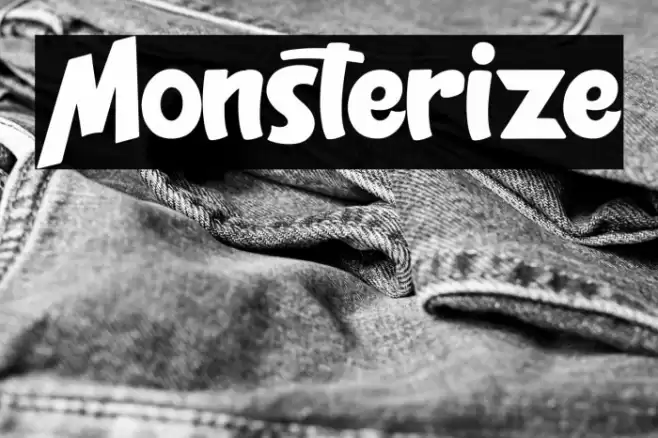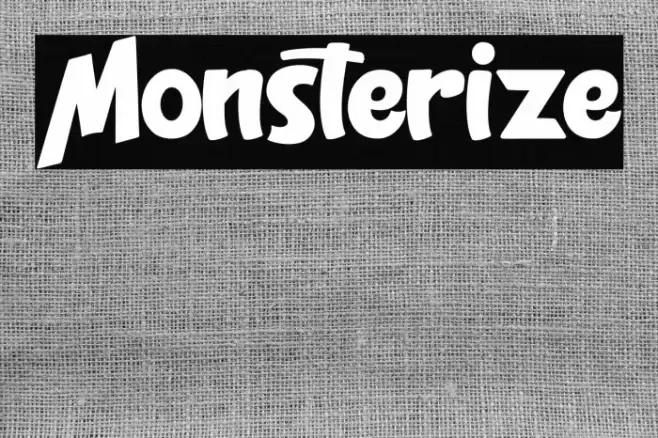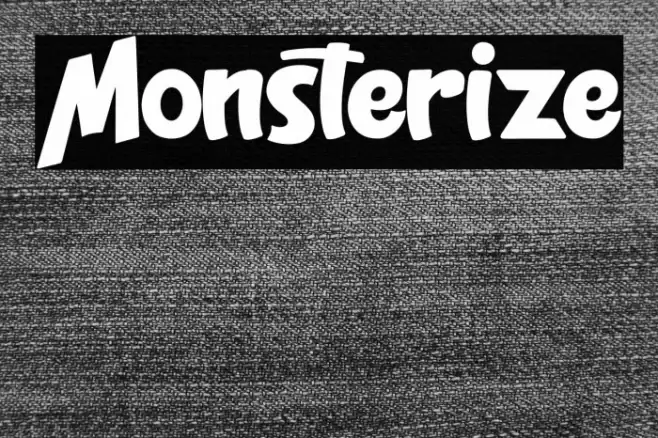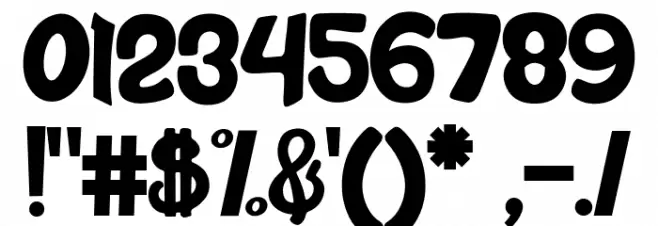
Monsterize Font
Monsterize Description
This font features a bold and playful design with exaggerated curves and a slightly irregular baseline, giving it a whimsical and dynamic appearance. The characters are thick and robust, with a hand-drawn feel that adds a sense of fun and creativity. The uppercase and lowercase letters maintain a consistent style, while the numerals and special characters are equally bold and expressive. This font is ideal for projects that require a lively and energetic touch, making it perfect for children's books, playful branding, or eye-catching headlines.
A bold, playful font with a hand-drawn, whimsical style from Uncategorized fonts.
- Proposed Projects: Children's books, playful branding, eye-catching headlines, posters, and creative invitations.
- Overall Style: Playful, Whimsical, Creative